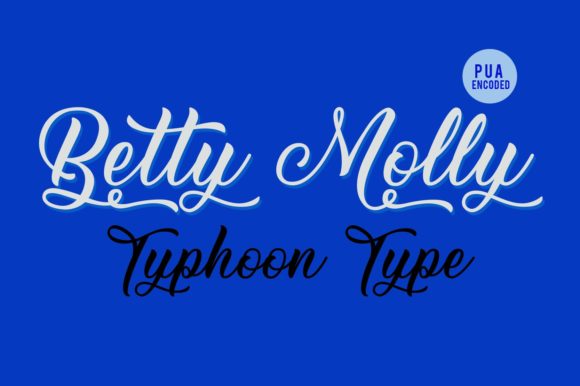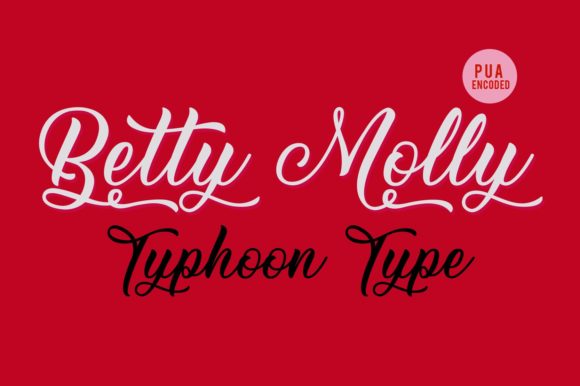
Betty Molly Font
Betty Molly is a heartwarming and cursive script font. This font looks great in print projects and can give your work a luxurious yet relatable feel.